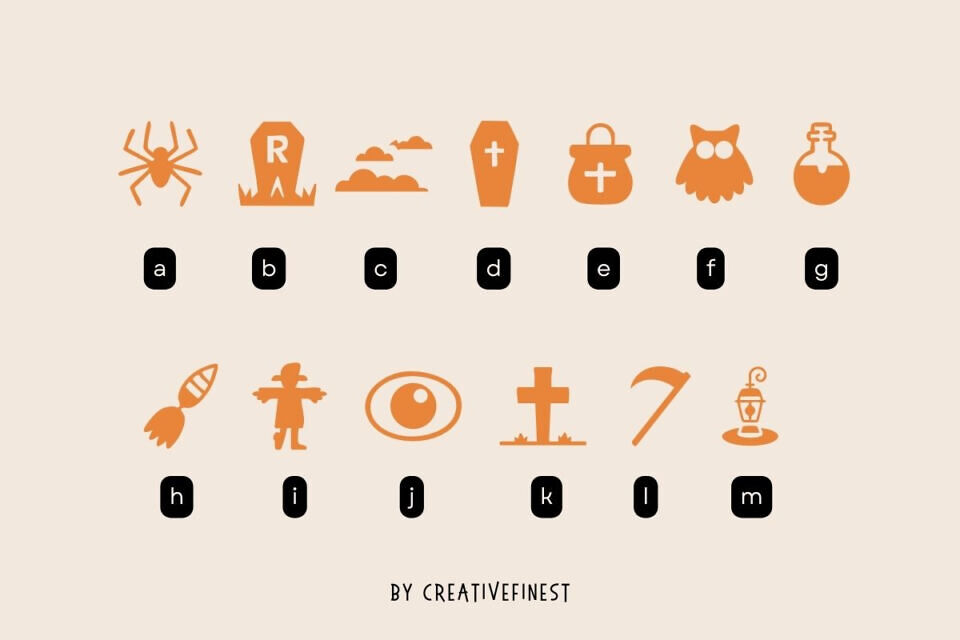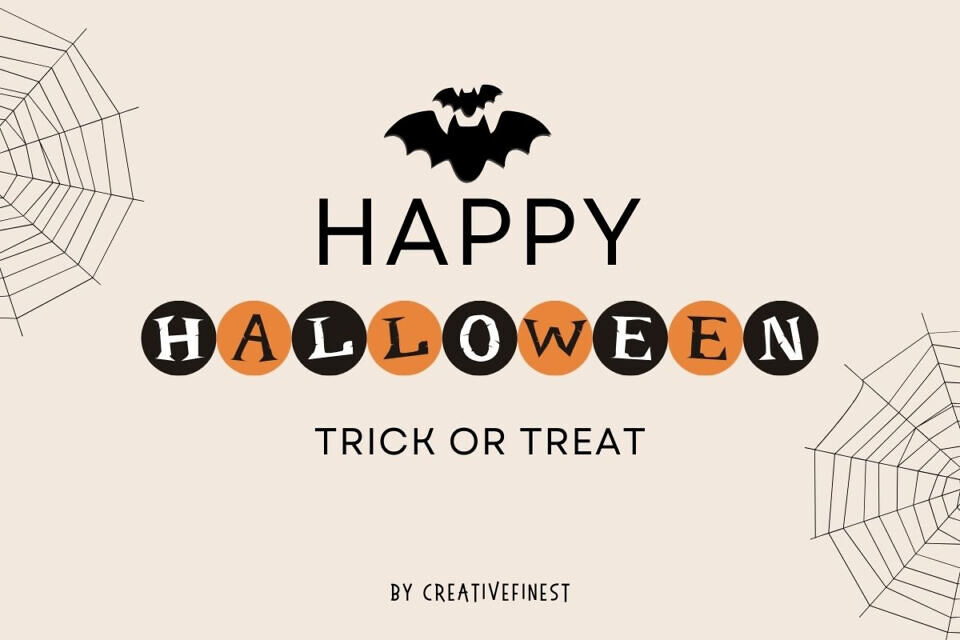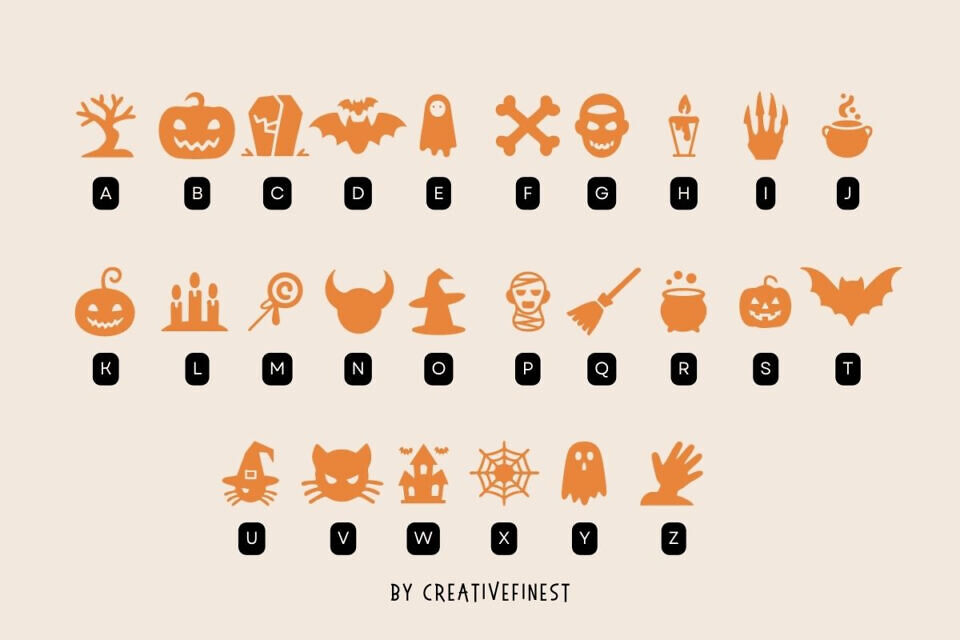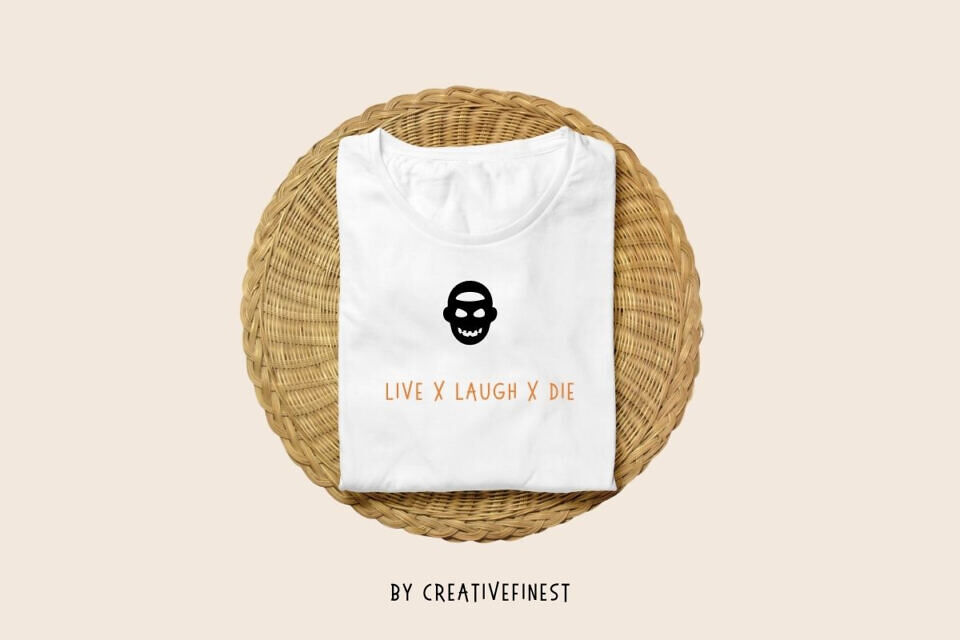
Presenting The Boo-tiful Halloween Font, a playful doodle typeface designed to bring a fun, spooky atmosphere to your creative projects. With bold jagged edges, quirky drips, and festive Halloween flair, this font perfectly captures the holiday spirit.
Adorned with charming pumpkins, soaring bats, and classic Halloween doodles, it’s ideal for party invitations, posters, social media graphics, or any seasonal design. Add a dash of haunted magic and playful character to your work with The Boo-tiful Halloween Font—because every spooky creation deserves to be both eerie and beautiful.